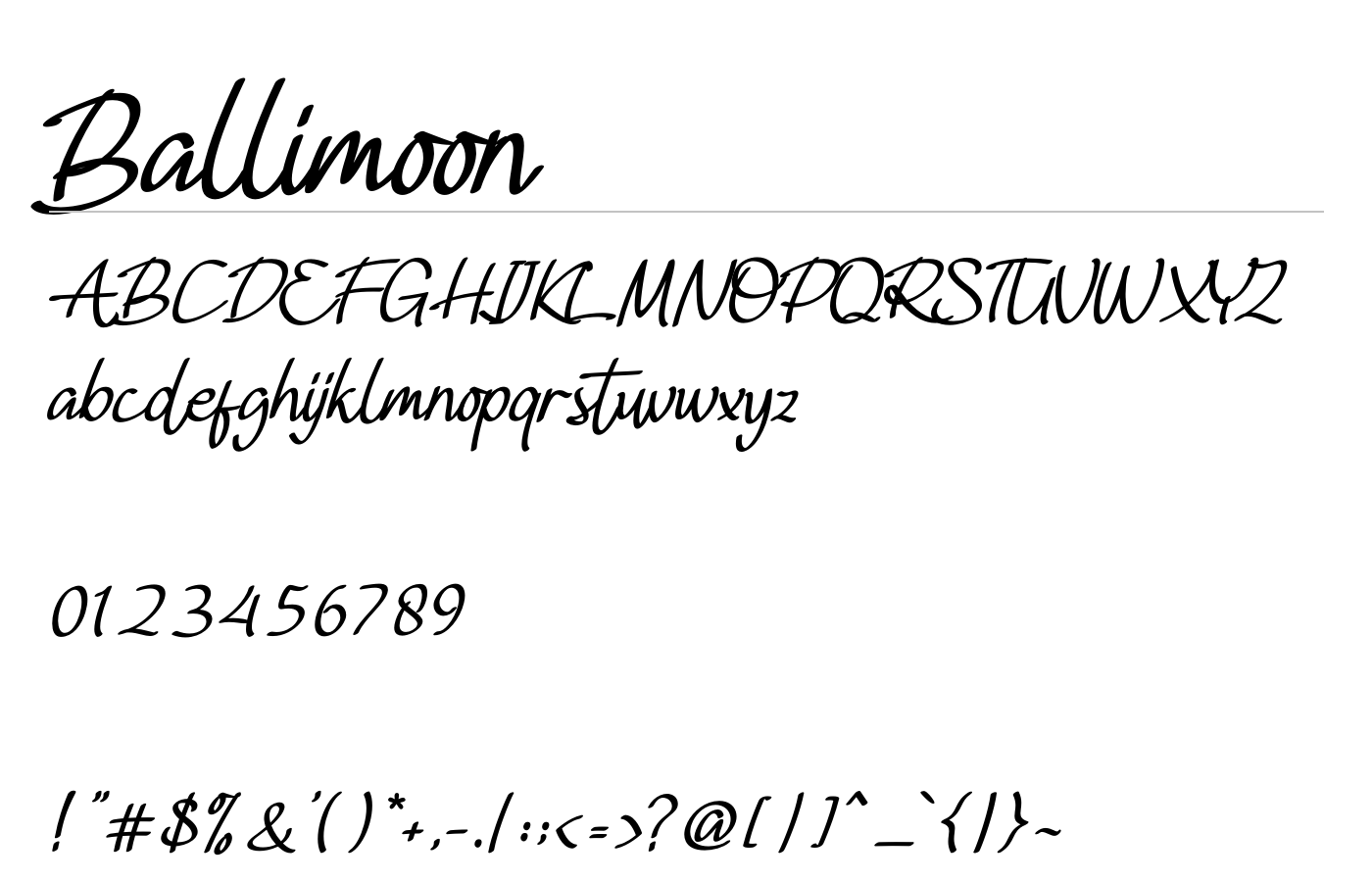
Ballimoon is a lively and elegant script font with a smooth, handwritten style that features delicate strokes and natural flow. Its slender, slightly condensed letterforms and casual yet refined appearance make it ideal for creative projects, branding, invitations, and fashion-related designs where a personal, artistic touch is desired. This font combines charm and sophistication, perfect for expressing warmth and individuality.
Ballimoon Font